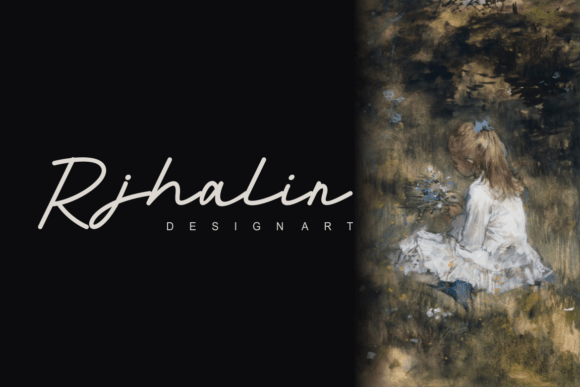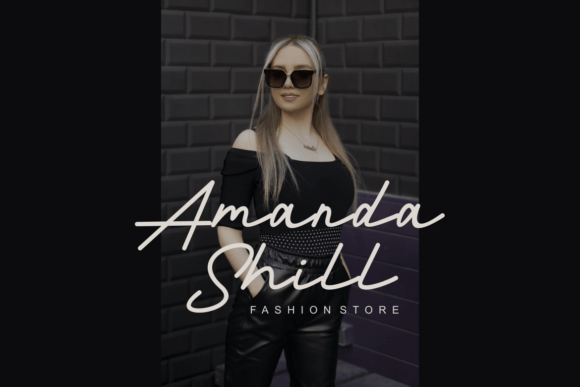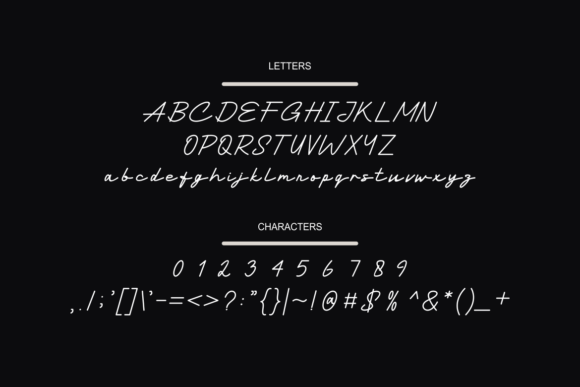
Introduction to Indamaro Font
Indamaro is a handwritten font with a friendly, casual style.
Its letters have a personal touch, making your text look like it was written by hand It’s great for adding a warm, informal feel to your designs.
Key Features of Indamaro Font